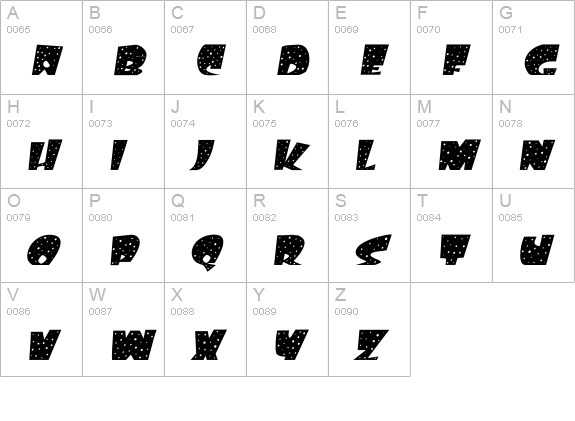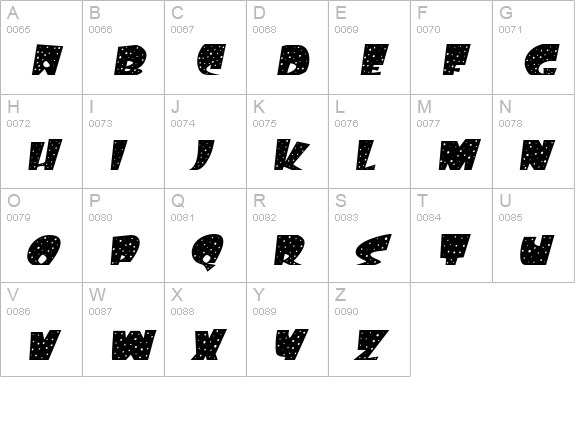
Freckle Oblique Font Details
Freckle Oblique is a distinctive, italic variant in the Freckle typeface family \xE2\x80\x94 well suited to design and typography projects.
Freckle Oblique font is a charming and whimsical typeface that adds a touch of playfulness to any design project. With its unique slanted appearance and scattered freckle-like dots, this font exudes a sense of creativity and individuality. Freckle Oblique is perfect for adding a fun and quirky element to your designs, whether you're working on posters, greeting cards, or social media graphics. Best of all, Freckle Oblique font is available for free download at FontsMarket.com. So go ahead and unleash your creativity with this delightful and eye-catching typeface today!